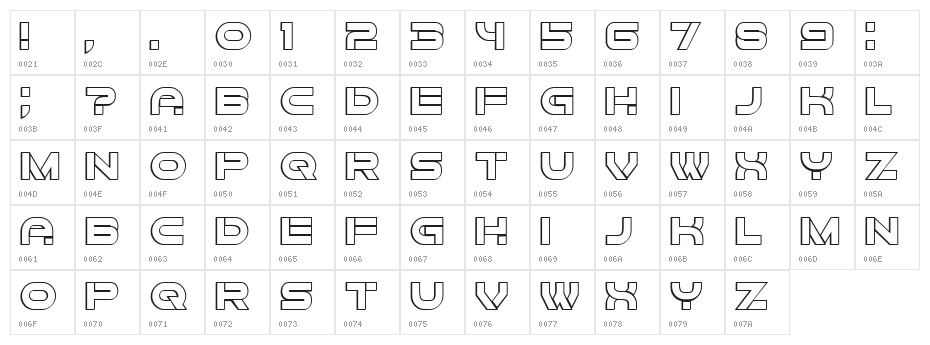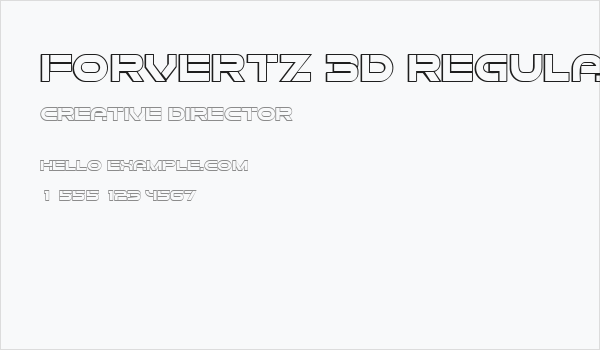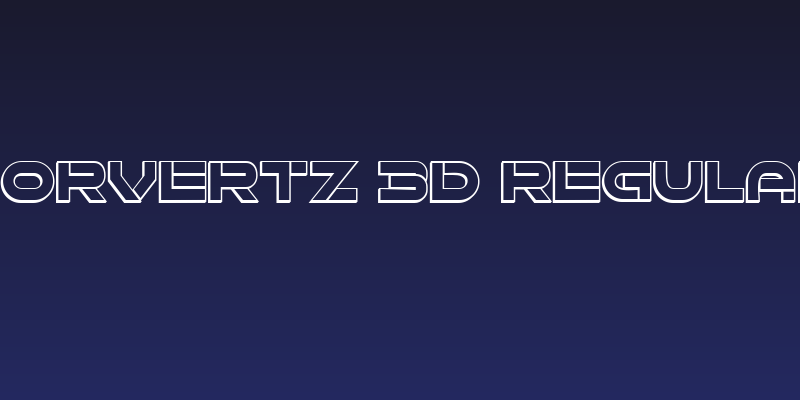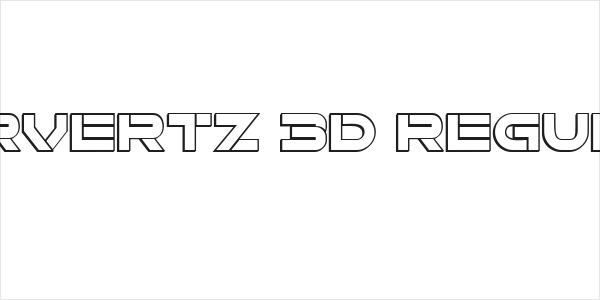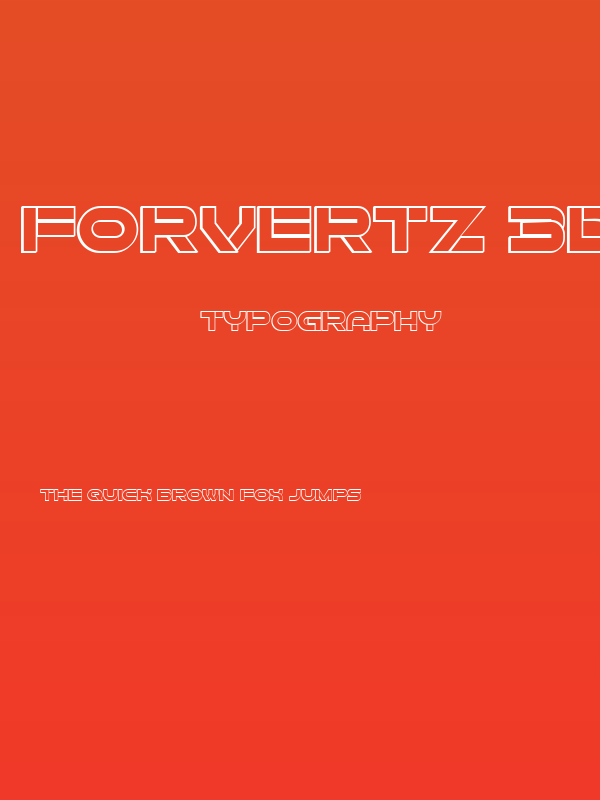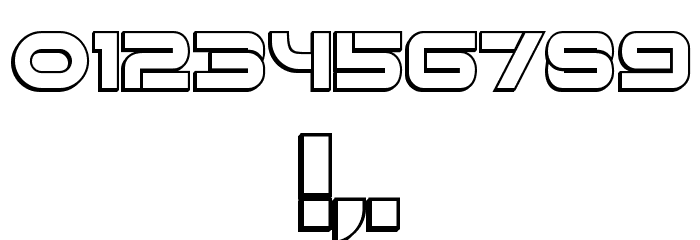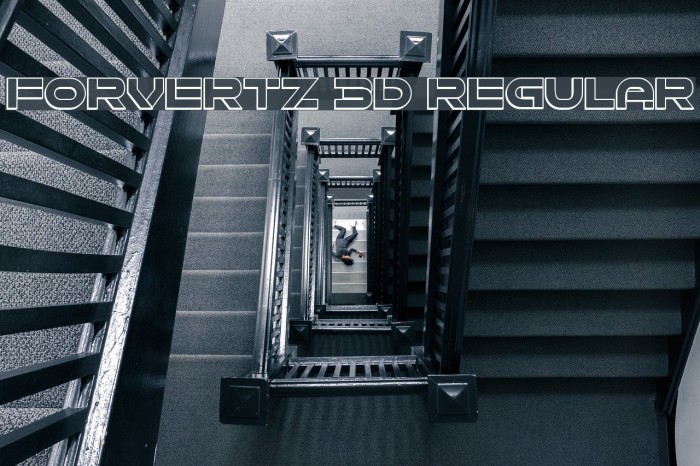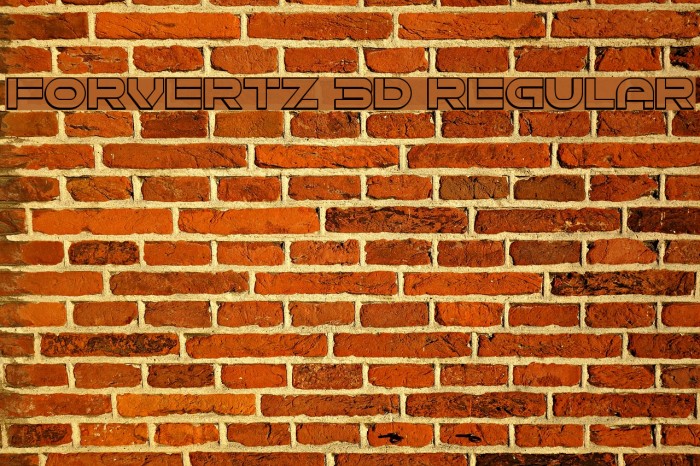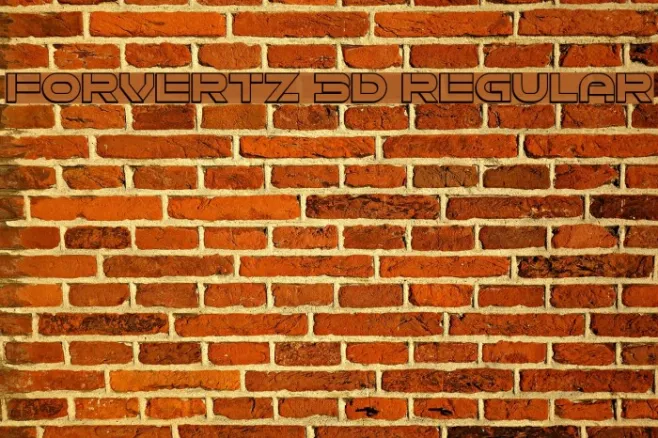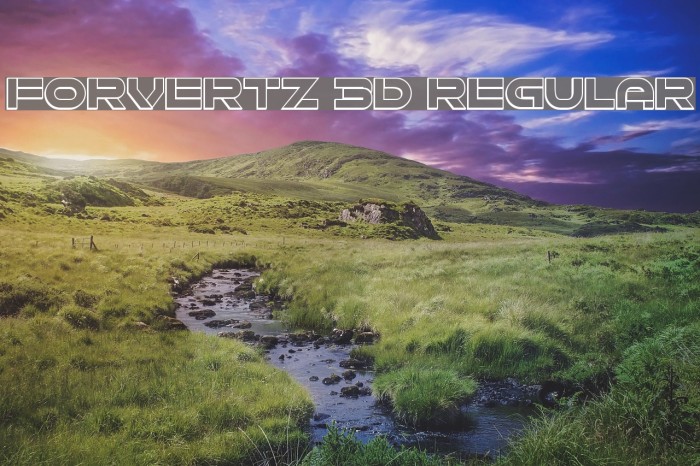
Forvertz 3D Regular Font
Forvertz 3D Regular Description
This font features a bold, geometric design with a three-dimensional effect, giving each character a distinct, futuristic appearance. The letters are constructed with clean lines and sharp angles, creating a sense of depth and structure. The uppercase and lowercase letters maintain a consistent style, with a uniform width that enhances readability. The numbers and special characters follow the same design principles, ensuring a cohesive look across all elements. This font's unique style makes it ideal for projects that require a modern and eye-catching typeface.